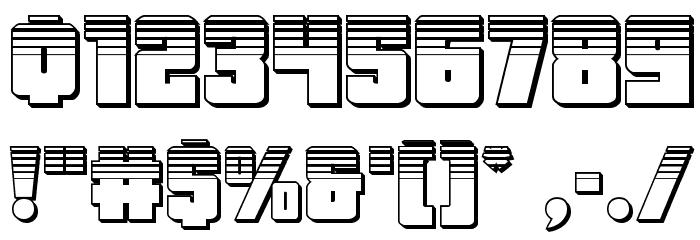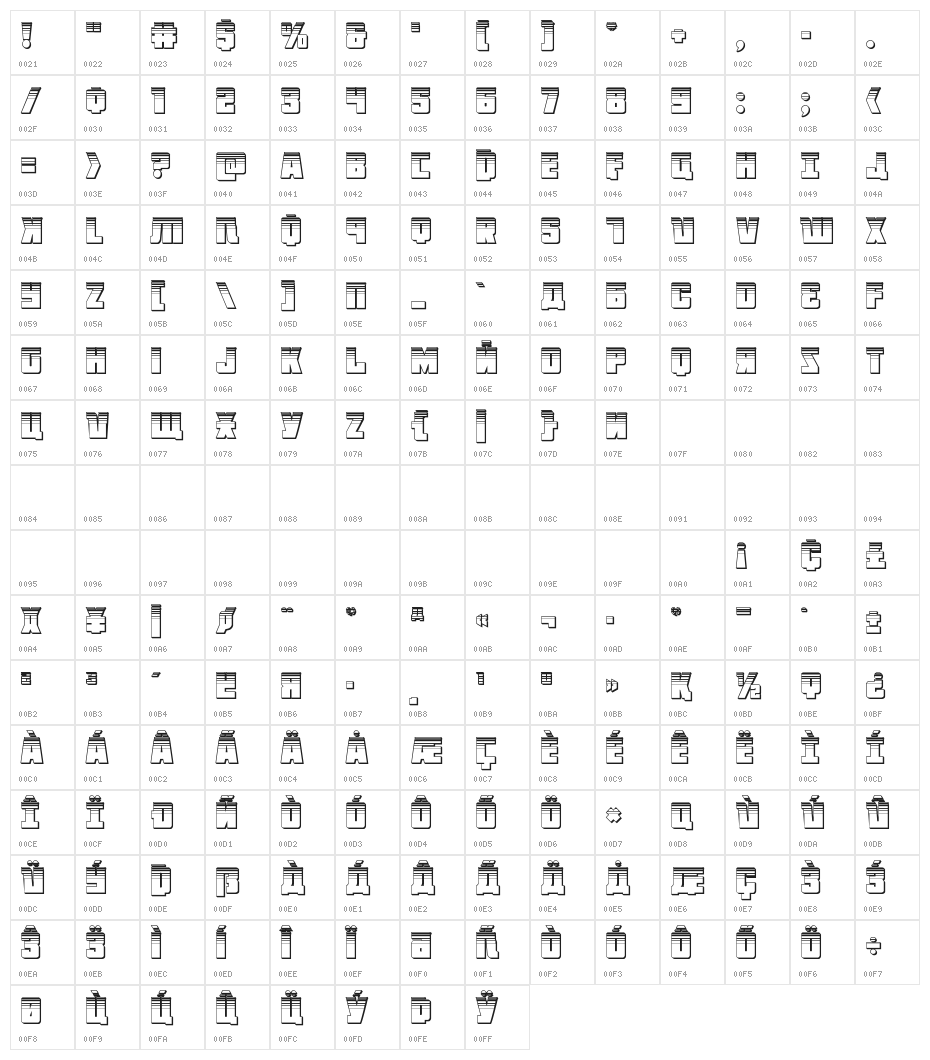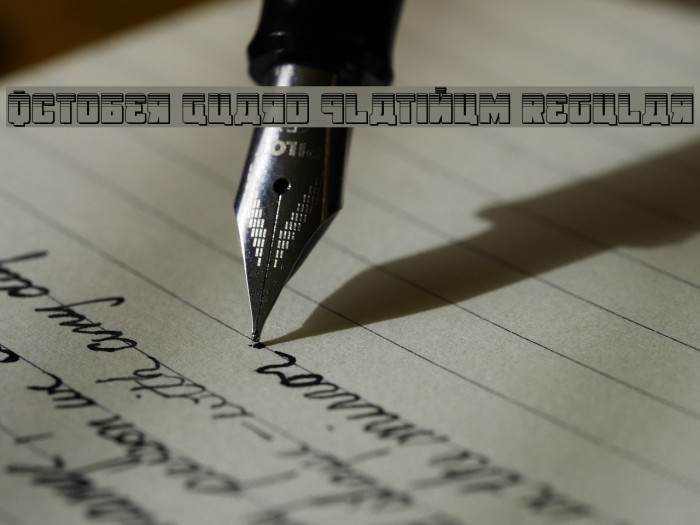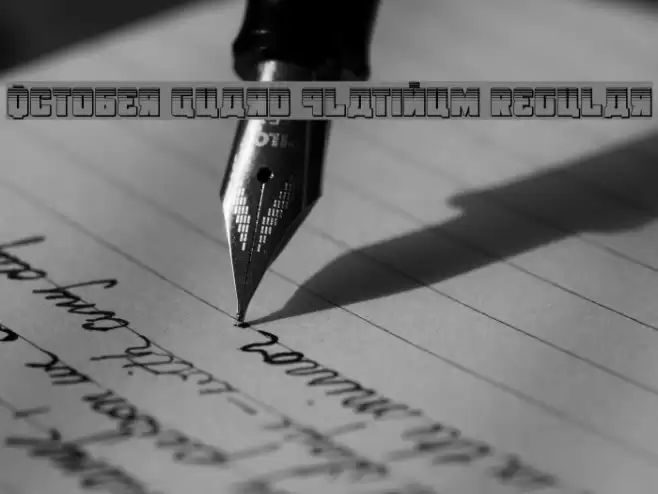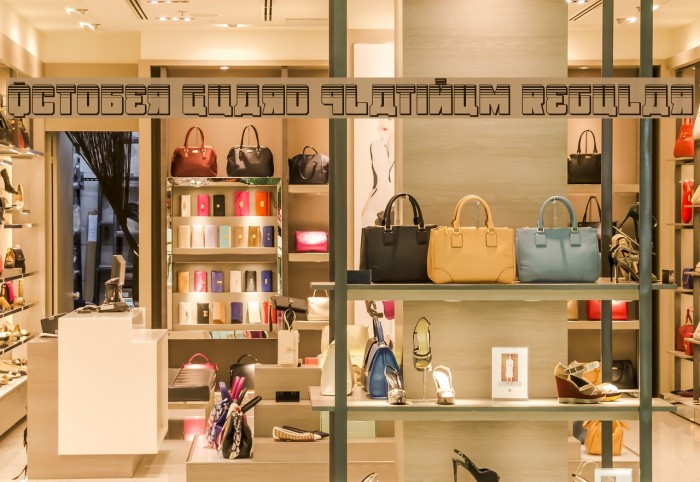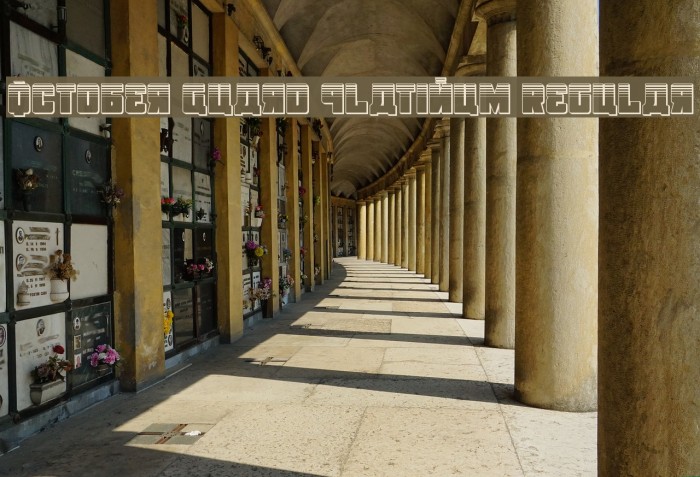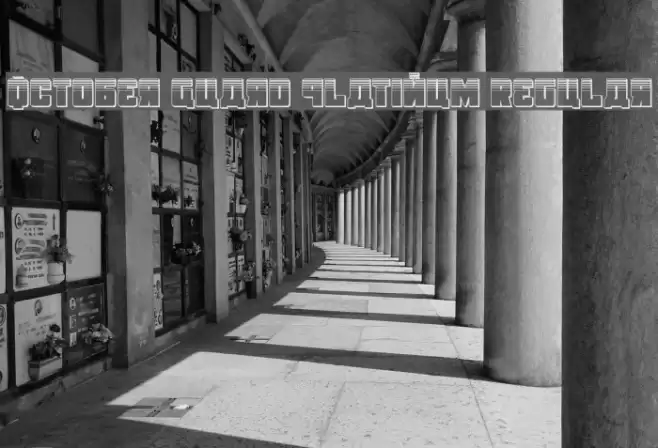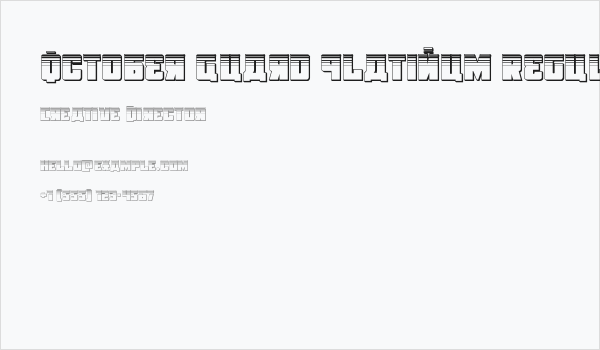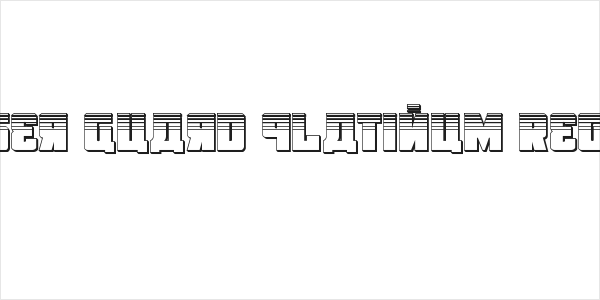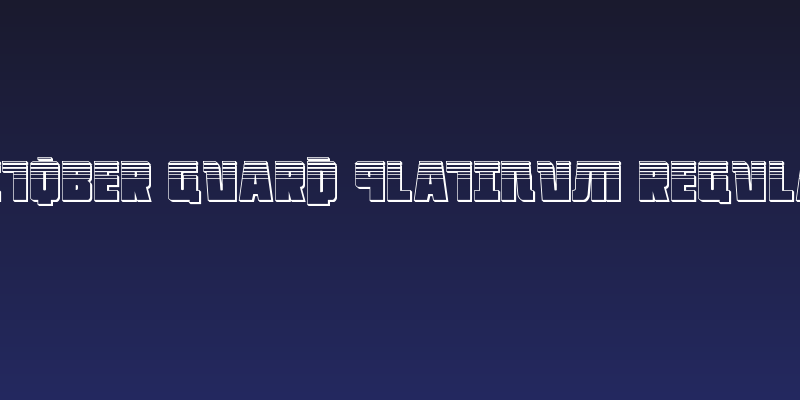
October Guard Platinum Regular Font
October Guard Platinum Regular Description
This font features a bold, geometric design with a distinct three-dimensional effect. Each character is outlined with a thick border, creating a layered appearance that adds depth and visual interest. The uppercase letters are particularly striking, with sharp angles and a blocky structure that conveys strength and modernity. The numerals and special characters maintain this bold aesthetic, ensuring consistency across all elements. The font's unique style makes it ideal for projects that require a strong visual impact, such as posters, logos, or headlines. Its decorative nature is well-suited for creative and artistic applications, where the font can serve as a focal point or a complementary element to other design components.